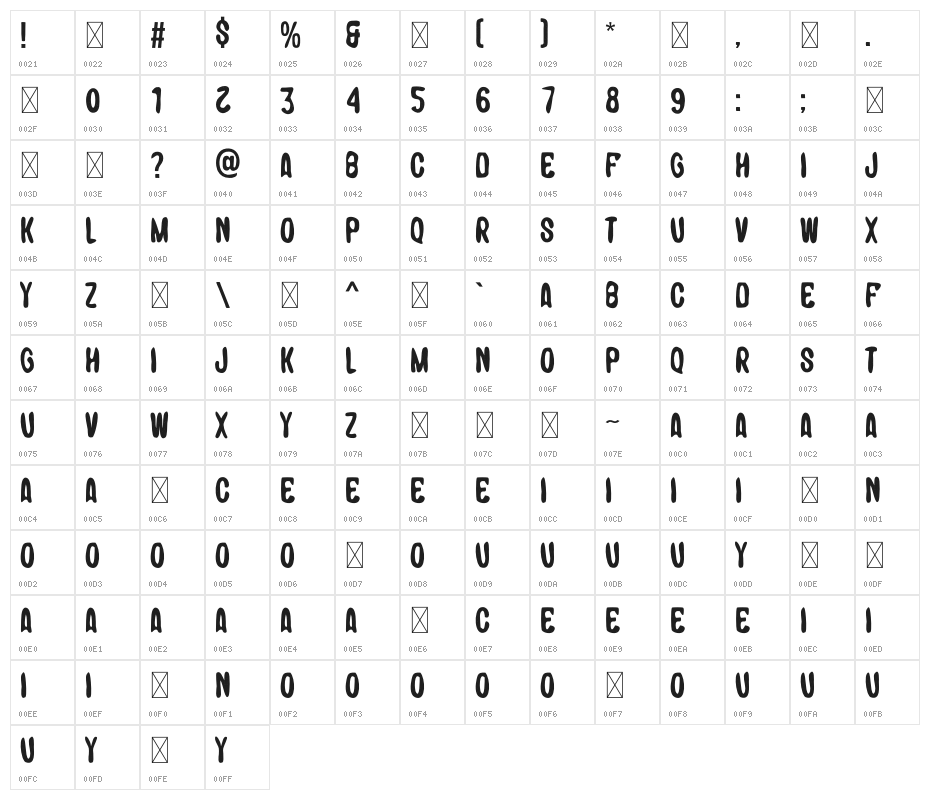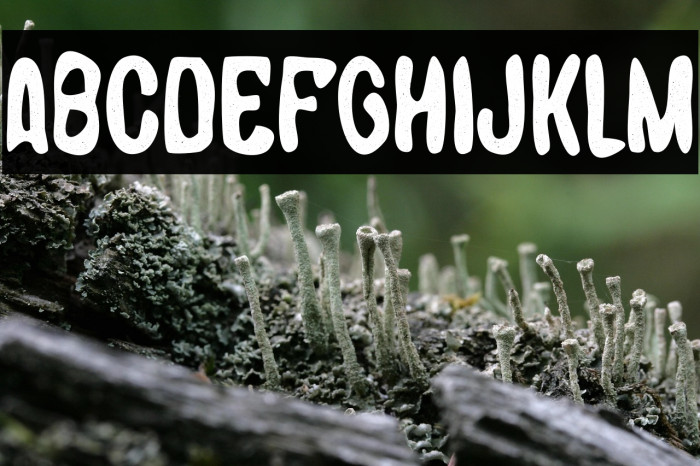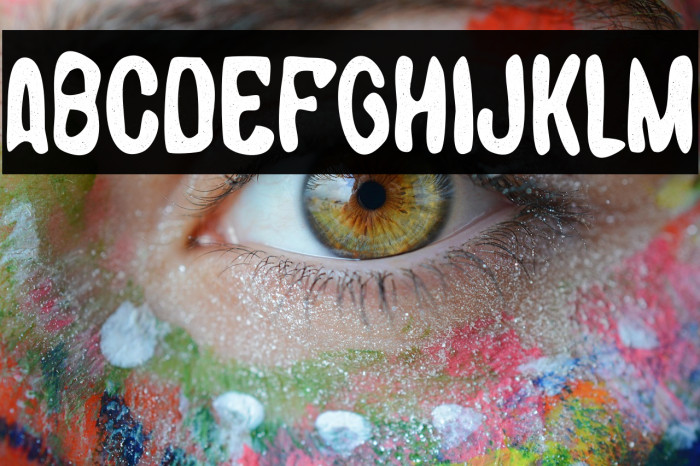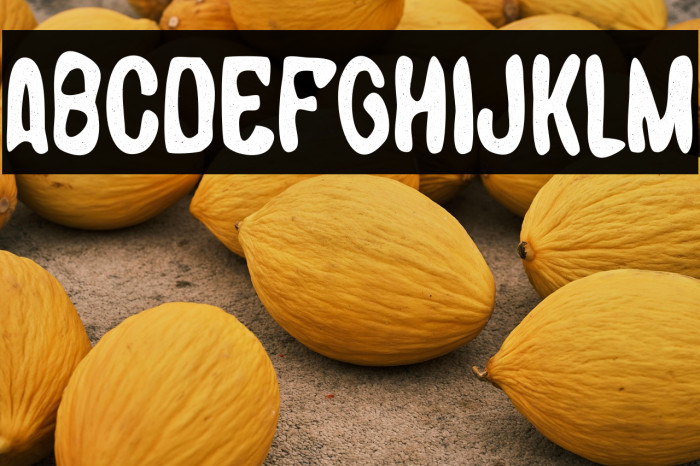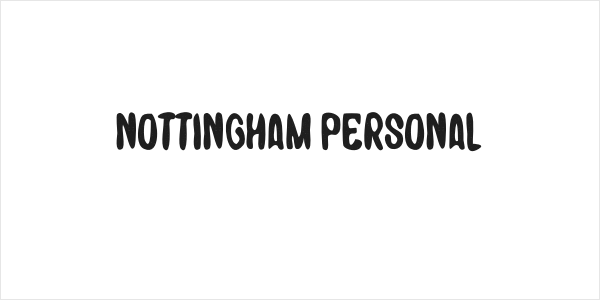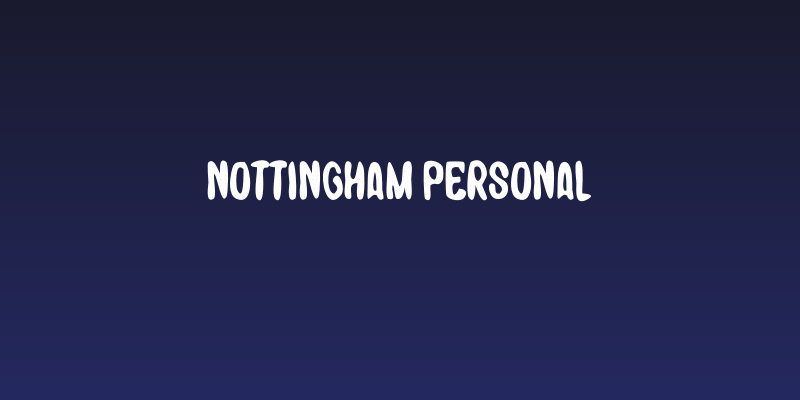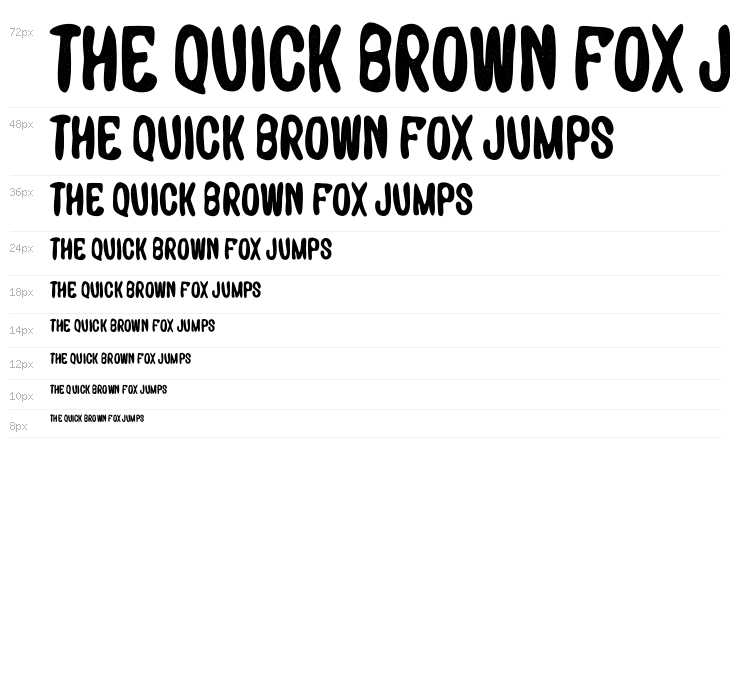
Nottingham Personal Font
Nottingham Personal Description
A bold, playful display font with rounded edges and a hand-drawn feel, suitable for eye-catching designs.
| Overall Style | Playful, Hand-drawn |
| Use Case | Headlines, Posters, Branding |
| Proposed Projects | Posters, headlines, children's books, playful branding. |